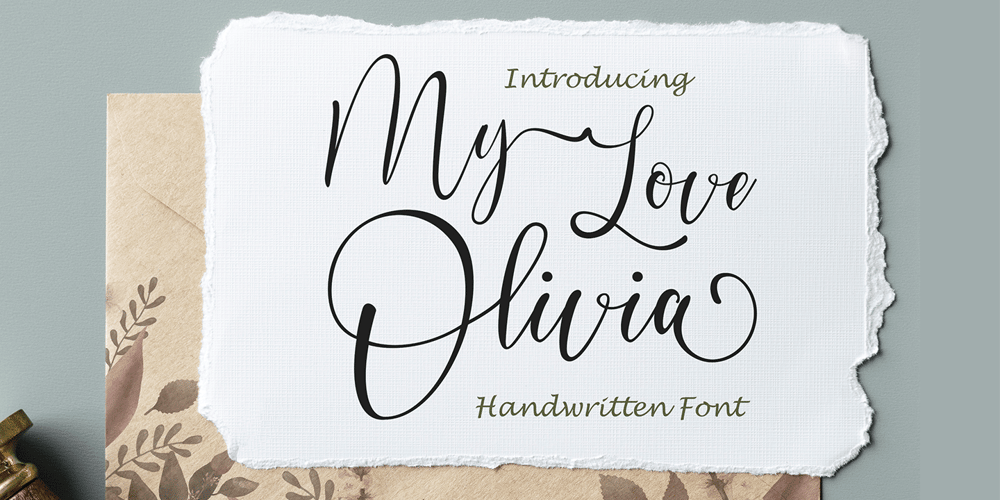
My Love Olivia Font Family was designed by Nasrullah and published by Sulthan Studio. My Love Olivia contains 1 styles and family package options. My Love Olivia is a modern, handwritten, modern calligraphy font. The shape is modern and unique and the writing style is very natural.My Love Olivia features a varied baseline, smooth lines, gorgeous glyphs, and stunning alternatives. Hand-drawn design elements allow you to create many beautiful typographic designs in an instant like branding, web design and editorial, prints, crafts, quotes,It’s great for logotypes, wedding invitations, romantic cards, labels, packaging, spelling of names and others.Add to your most creative ideas and watch how they bring them to life!